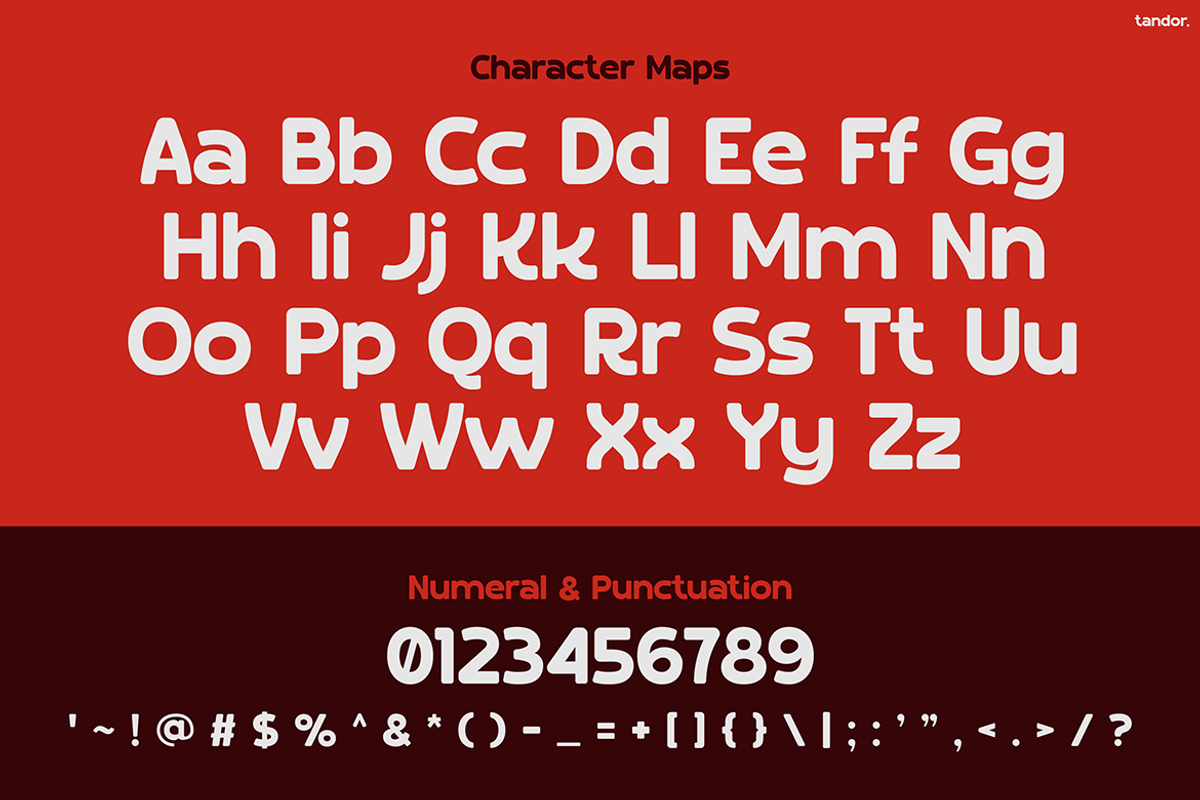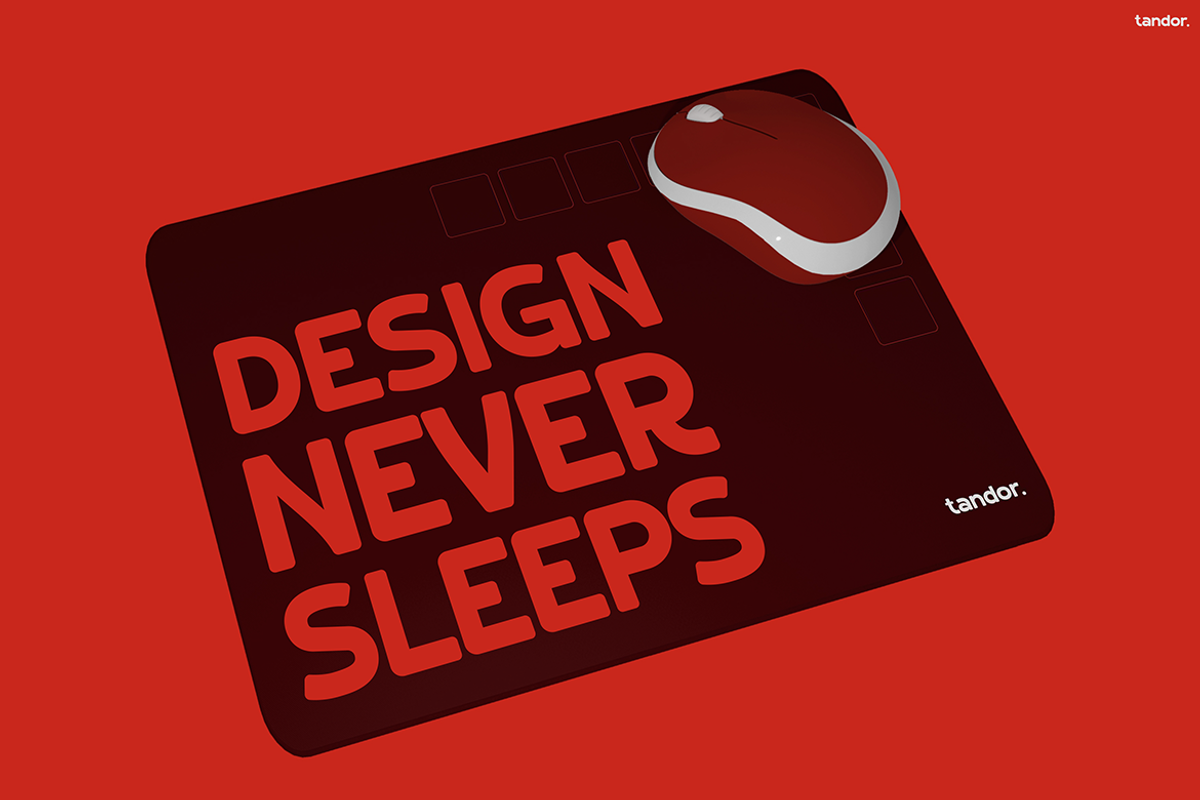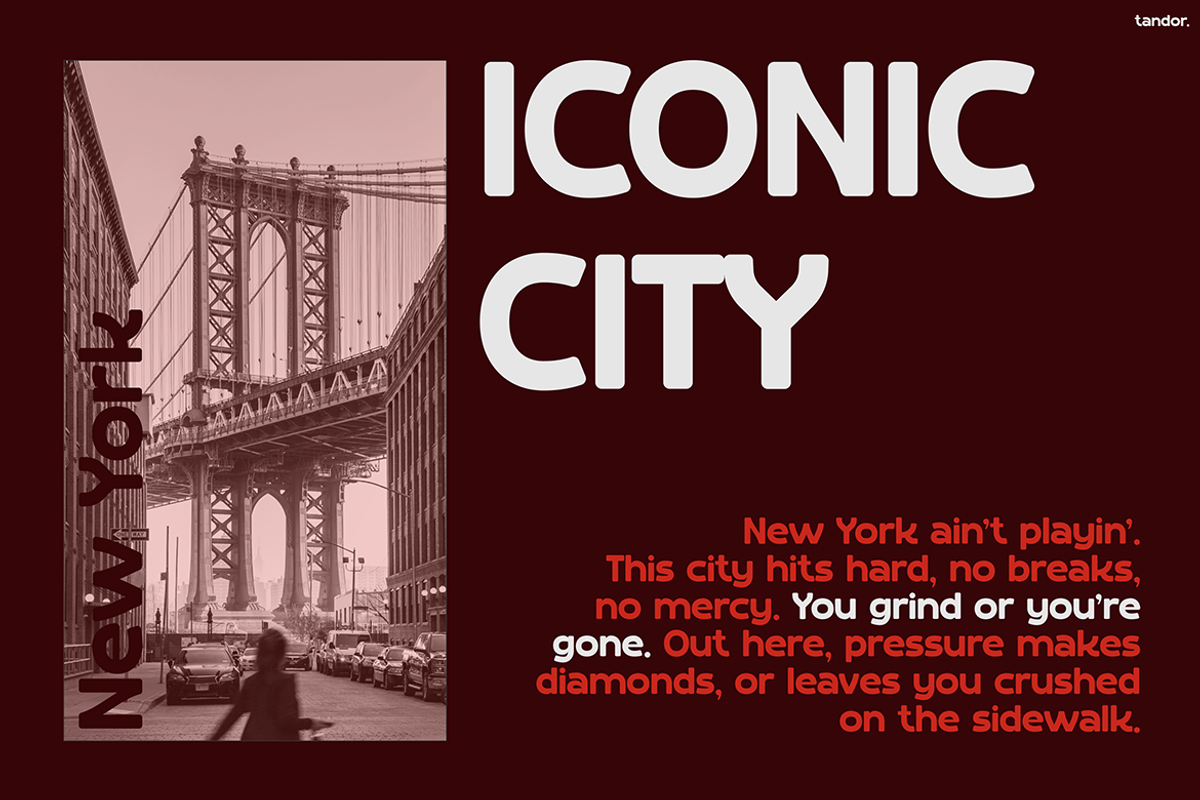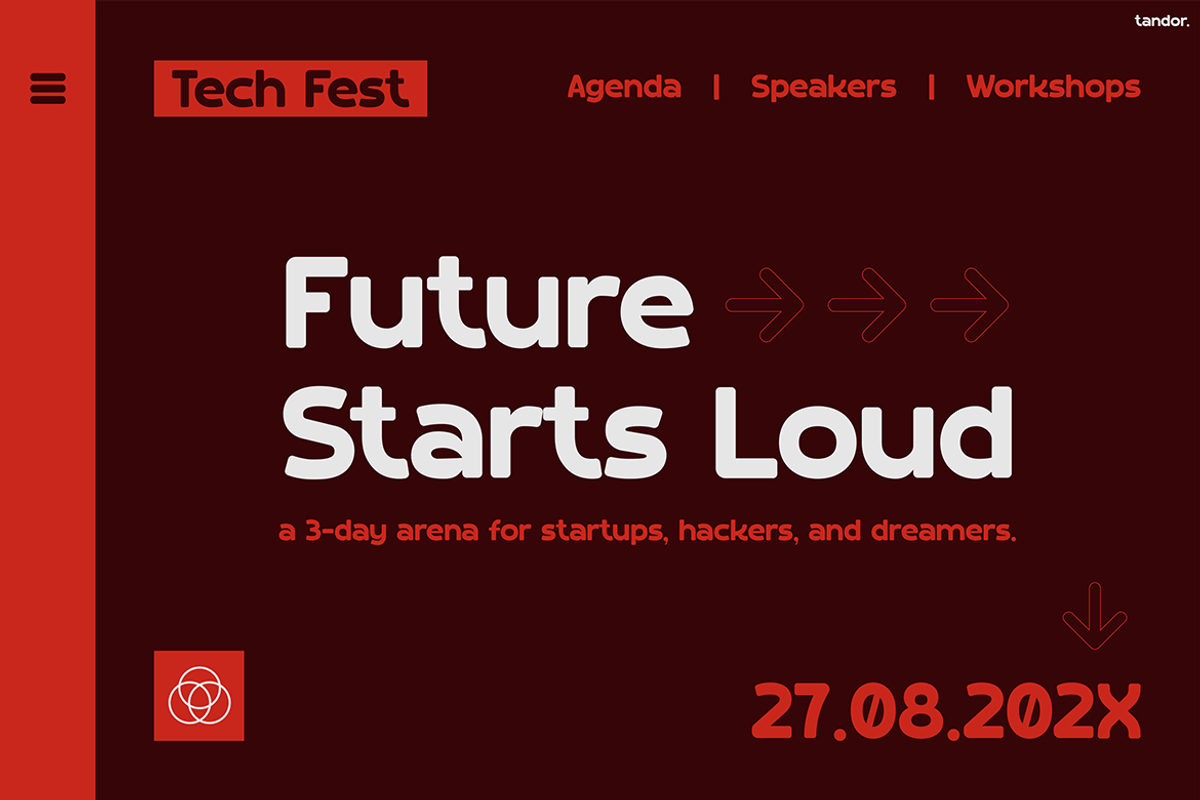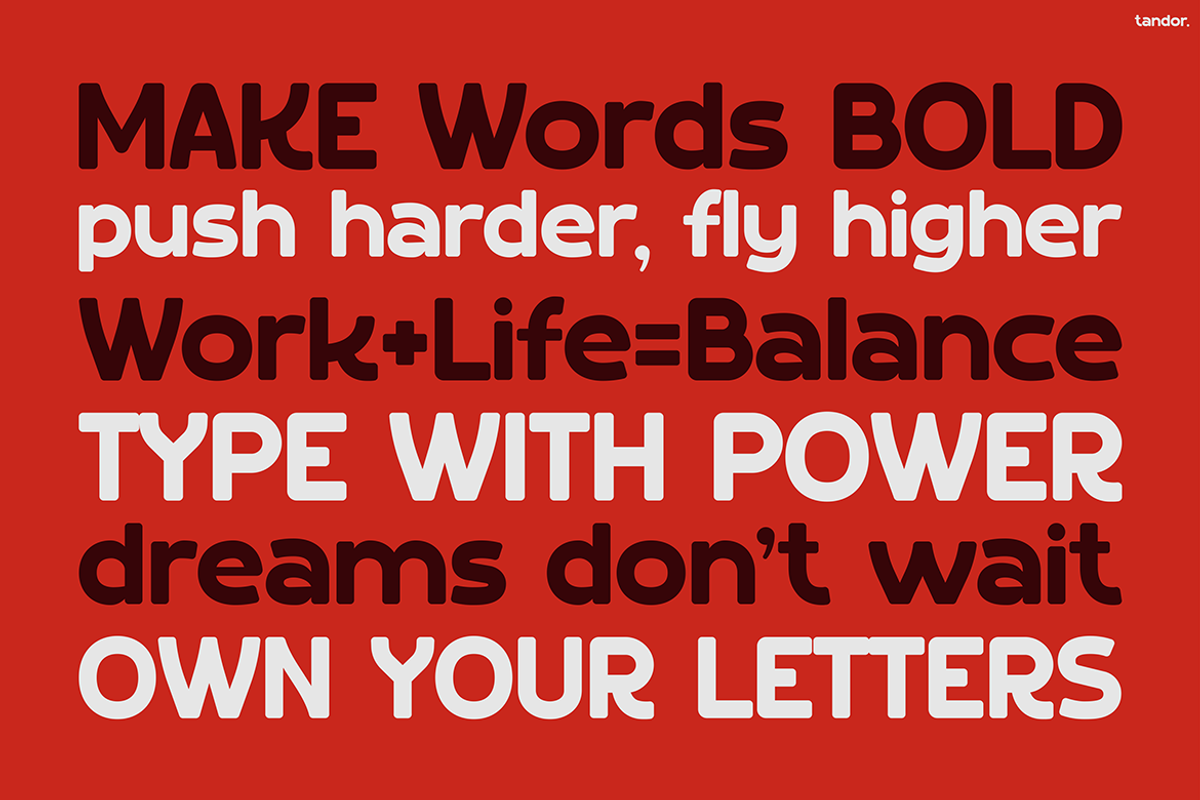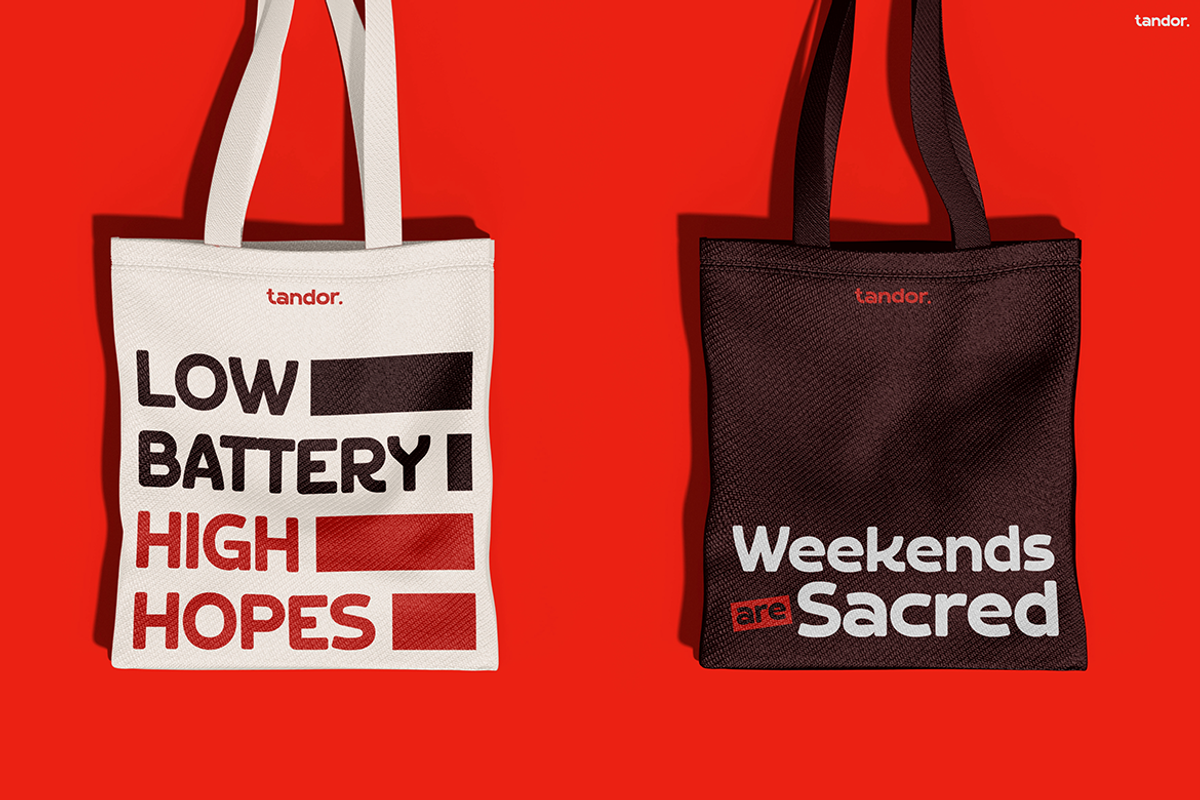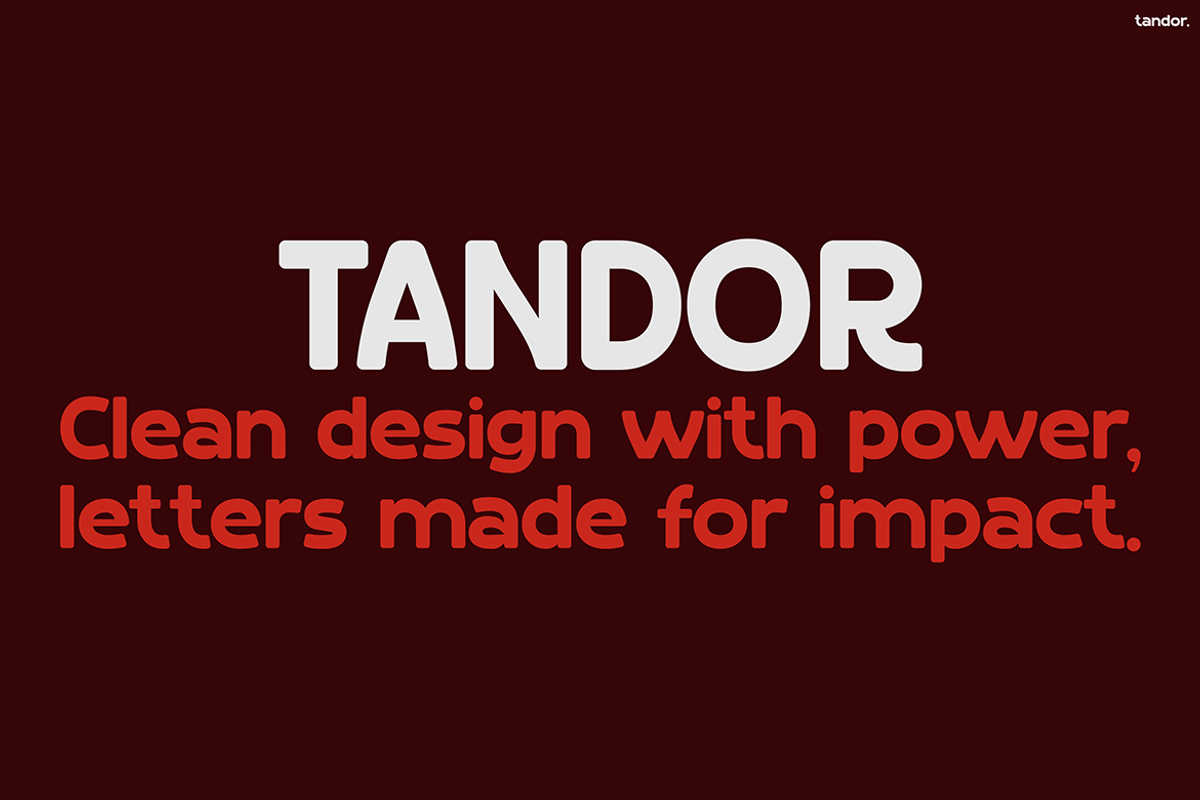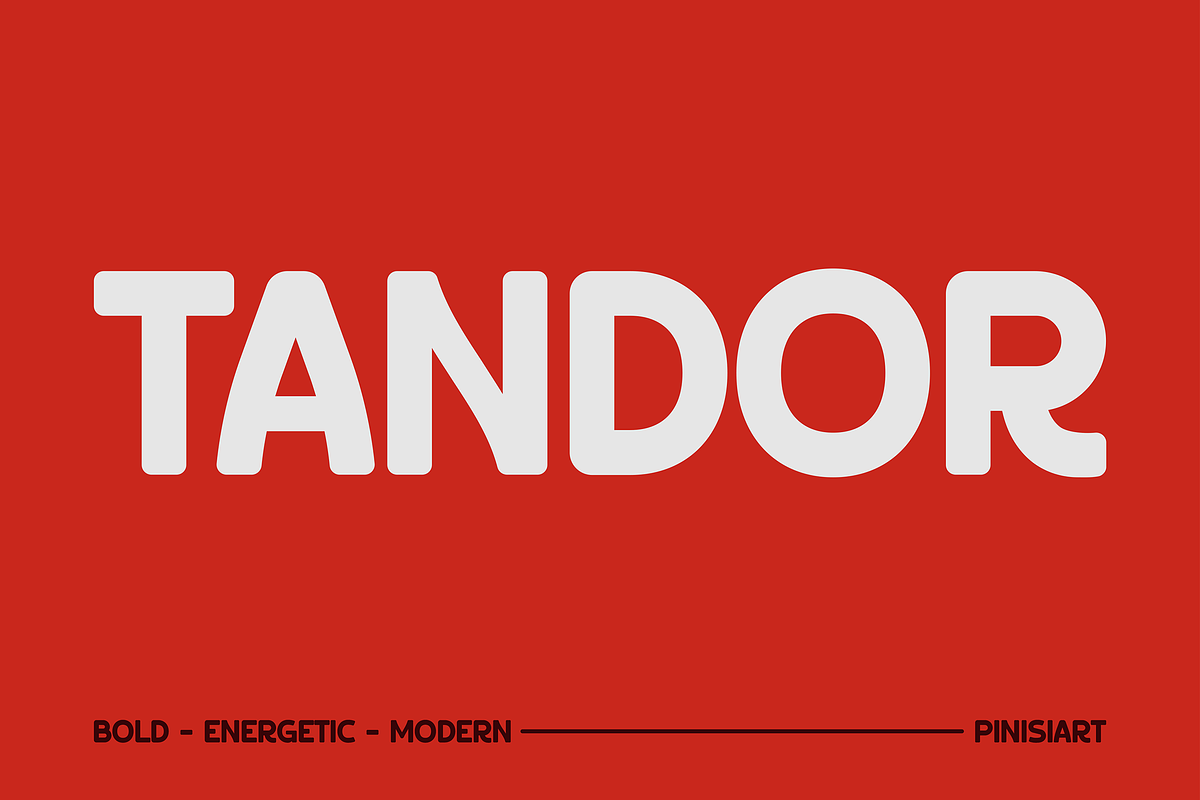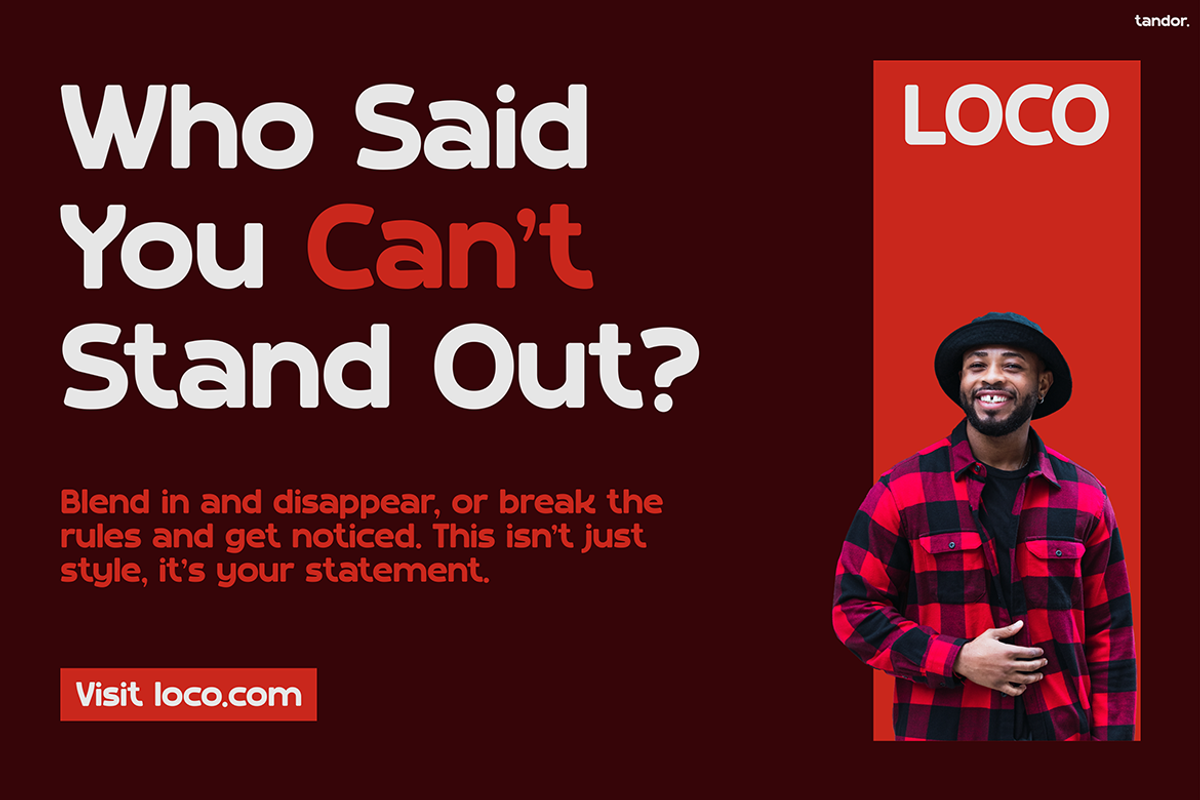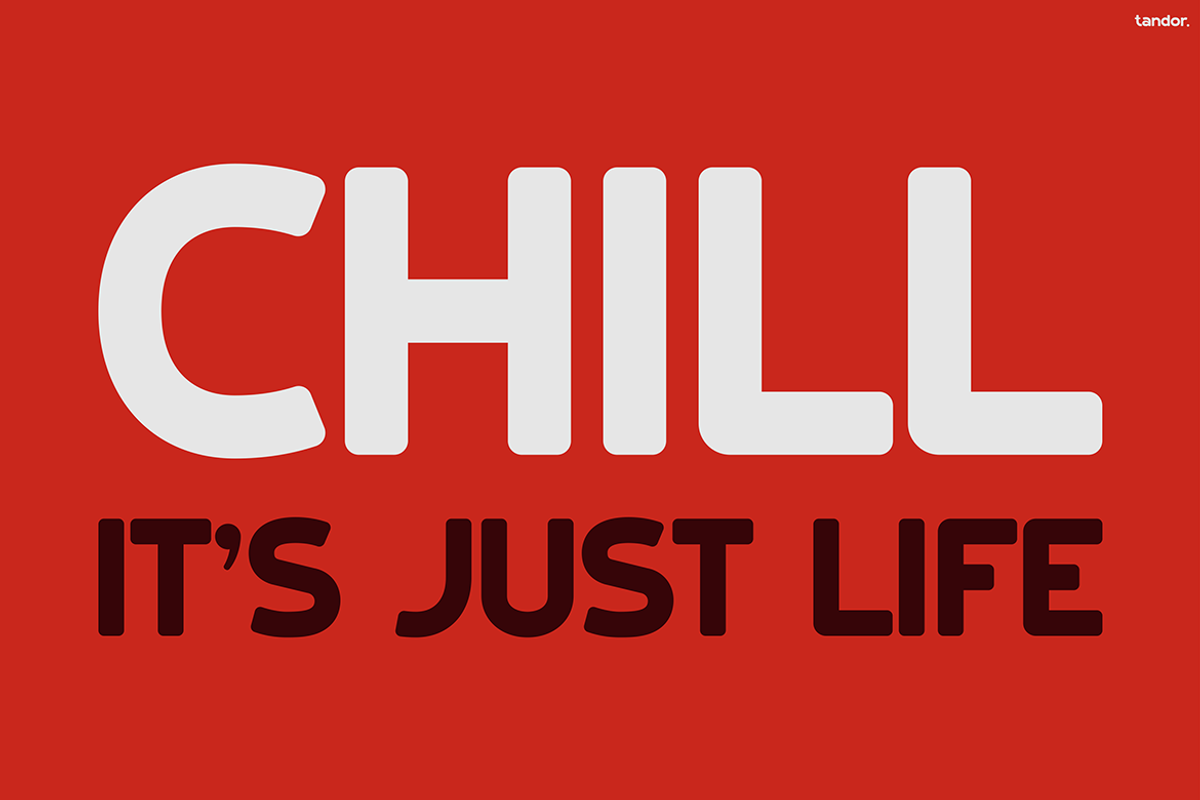
Tandor
Instagram Font Tandor – Bold, Modern, and Impactful Instagram Font Tandor is more than a typeface—it’s a design statement. With bold, clean, and energetic shapes, it grabs attention fast. Moreover, every word stands out with clarity and strength, making your message easy to read and hard to ignore. Tandor combines geometric balance with strong strokes, so it delivers a professional yet expressive style. Therefore, it works perfectly for branding, posters, social media, or packaging, instantly elevating your designs.
The true charm of Tandor lies in its modern minimalism. Each letter is simple, powerful, and free of distractions. In addition, the font focuses on pure visual impact, avoiding unnecessary flourishes. As a result, it is ideal for designs that need bold presence but remain stylish. It adapts well to tech campaigns, lifestyle brands, and creative promotions. Wherever you place it, Tandor ensures your work has a striking edge.